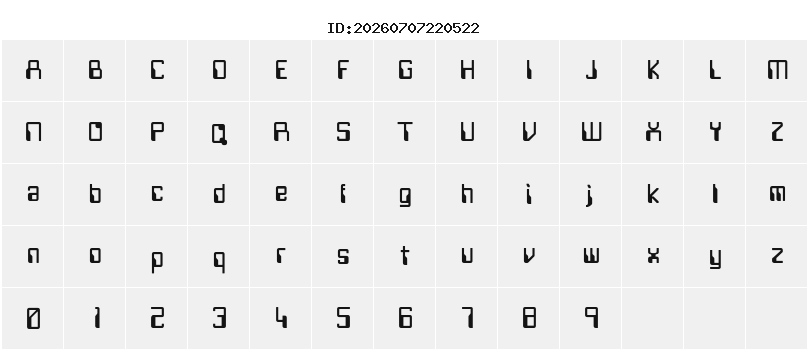
• Font Name: Data Pro
• Full Font Name: Data Pro
• PostScript Name: Data Pro
About Data Pro.ttf
Data Pro.ttf is a modern, elegant sans-serif font designed for ultimate readability and visual harmony. Perfect for branding, headlines, web design, and print materials.